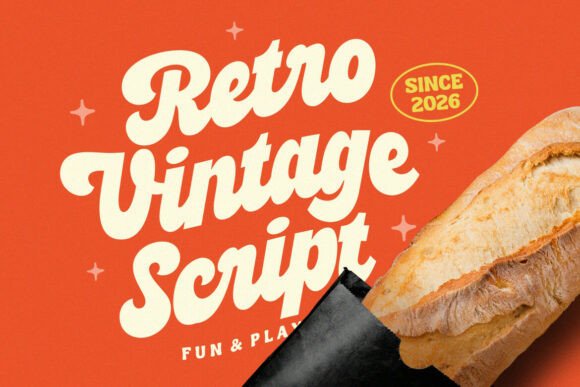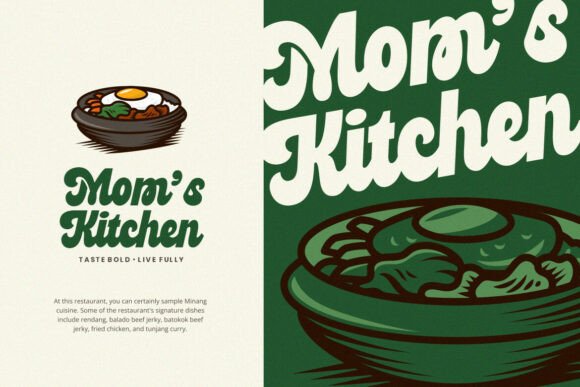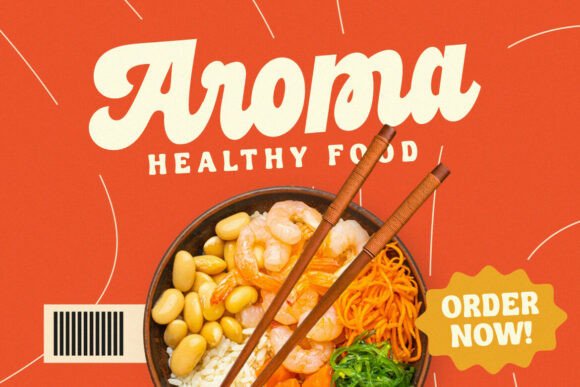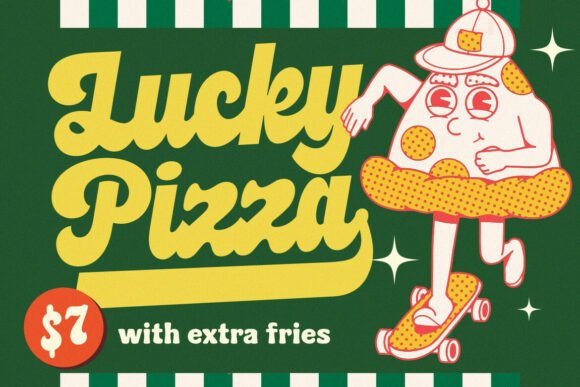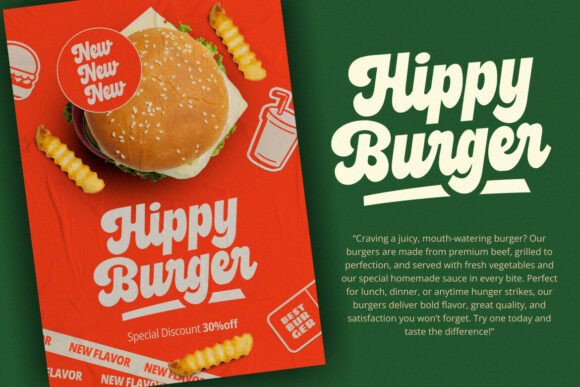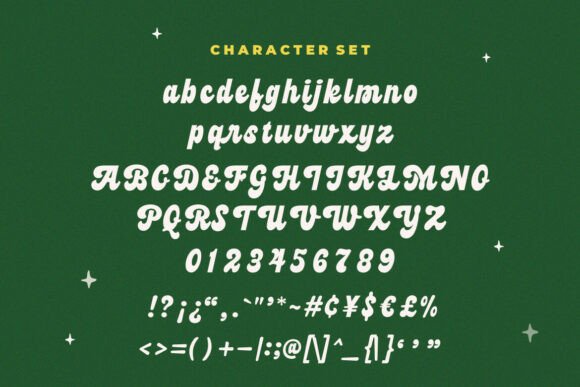
Introduction to Mister Flavor Font
You know that feeling when you stumble upon the perfect design element and it instantly elevates your creative project? For many designers, that moment of magic is about to arrive with the introduction of the Mister Flavor Font. This bold script typeface is about to become your go-to resource for adding a touch of retro charm and whimsy to your designs.
With its handcrafted display script design, inspired by the playful illustrations of the 1960s, the Mister Flavor Font is a game-changer for designers looking to add a unique vintage look to their work. Its thick, luscious curves and rhythmic flow are sure to evoke instant nostalgia, making it the perfect choice for creative projects that need to spark delight and engage viewers.
Mister Flavor Font
- Includes a range of unique and stylish characters, ideal for adding a touch of personality to your design
Honest Review: Mister Flavor Font
As a designer, I’m always on the lookout for high-quality design resources to elevate my creative projects. Recently, I stumbled upon the Mister Flavor Font and I must say it’s been a game-changer.
- ✨ Unique and playful design: The font has a distinctive, whimsical feel that adds a touch of personality to any project.
- ✨ High-quality graphics: The font is well-crafted, with clear and legible characters that are perfect for both digital and print projects.
- ⚠️ Limited character set: The font only includes a basic set of characters, which may not be suitable for projects that require a wide range of characters.
Overall, I’m impressed with the Mister Flavor Font and I’m glad I stumbled upon it. It’s a fantastic resource for designers looking to add a touch of personality to their projects. Just be aware of its limitations and use it accordingly.